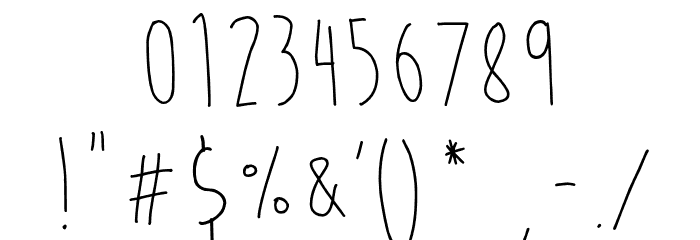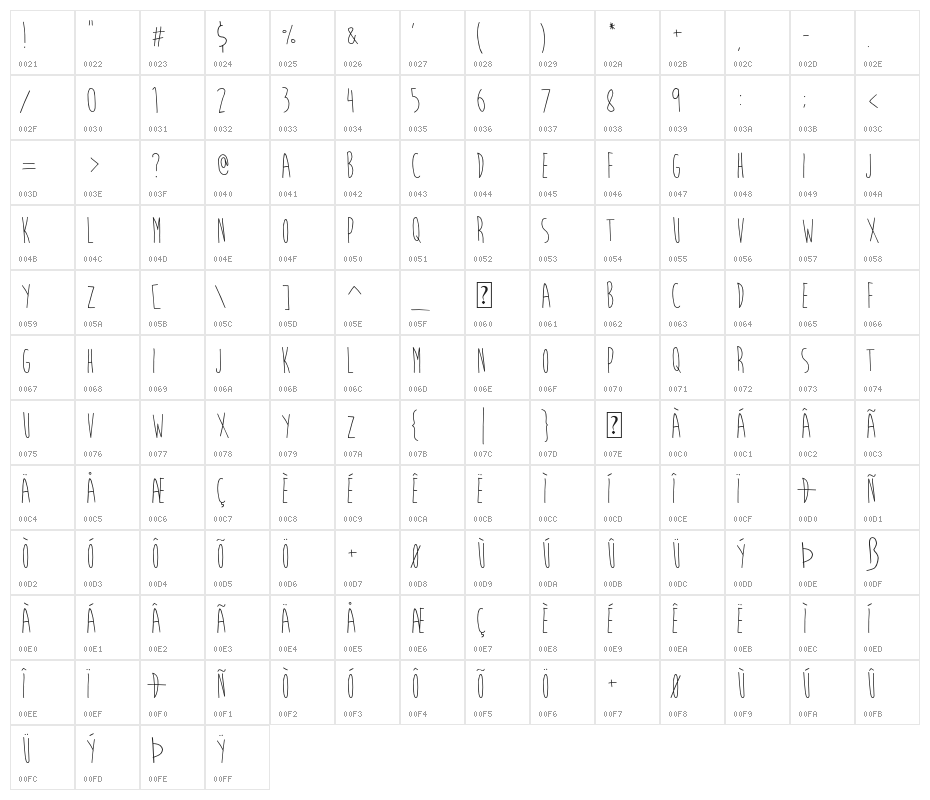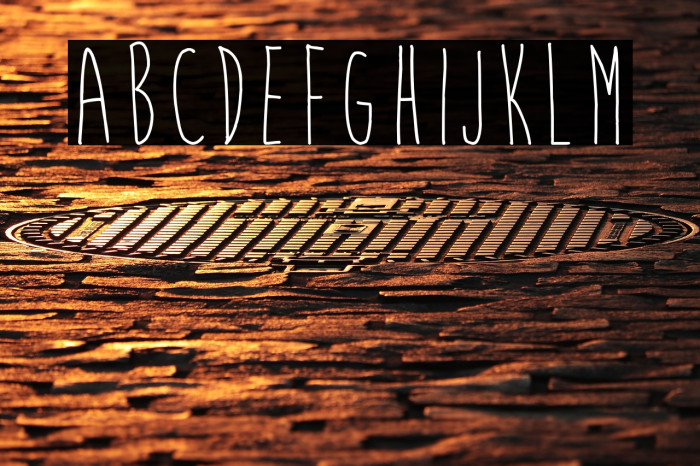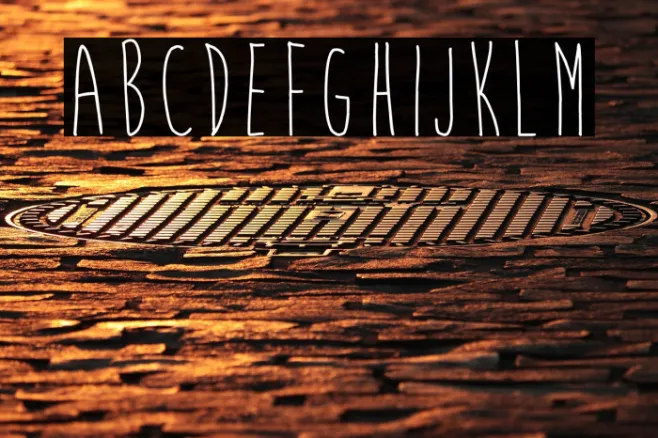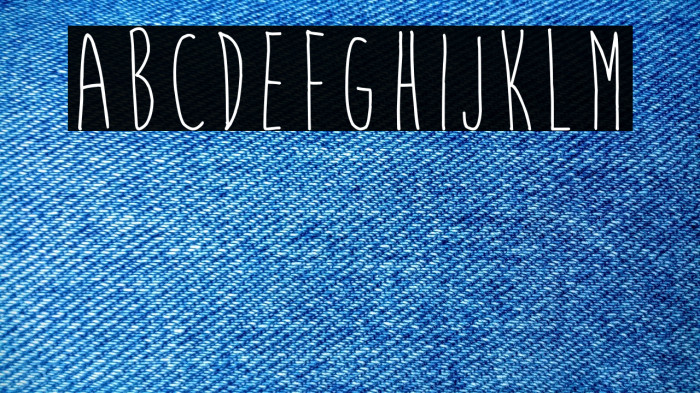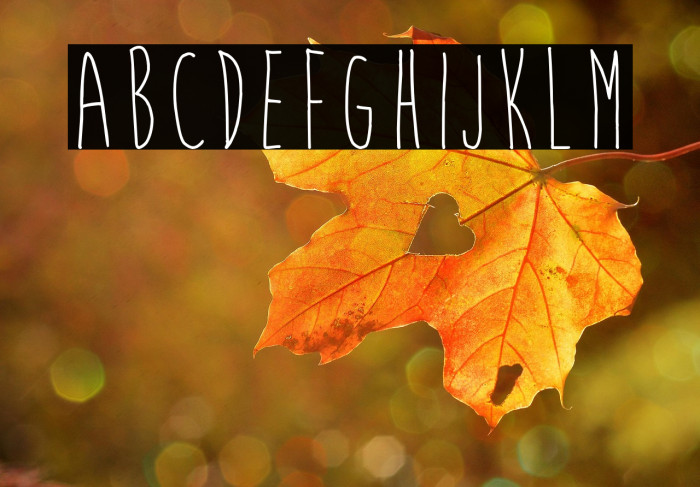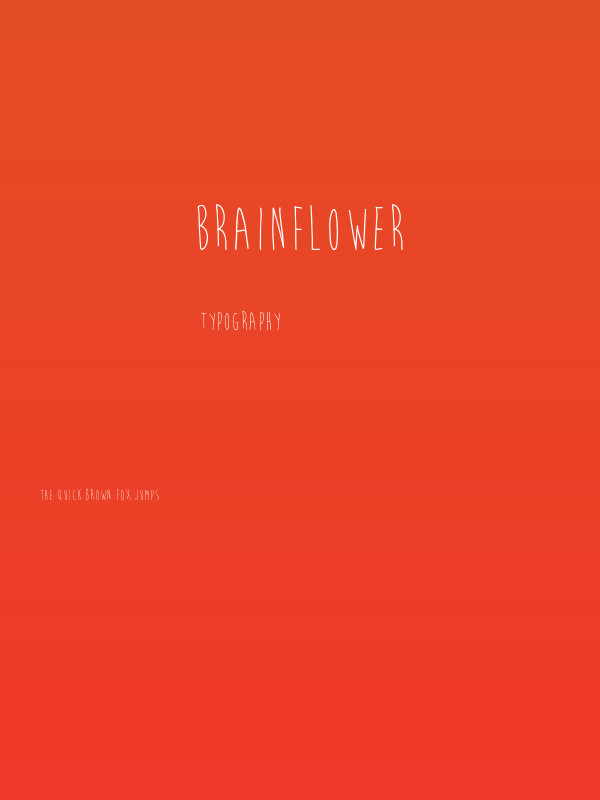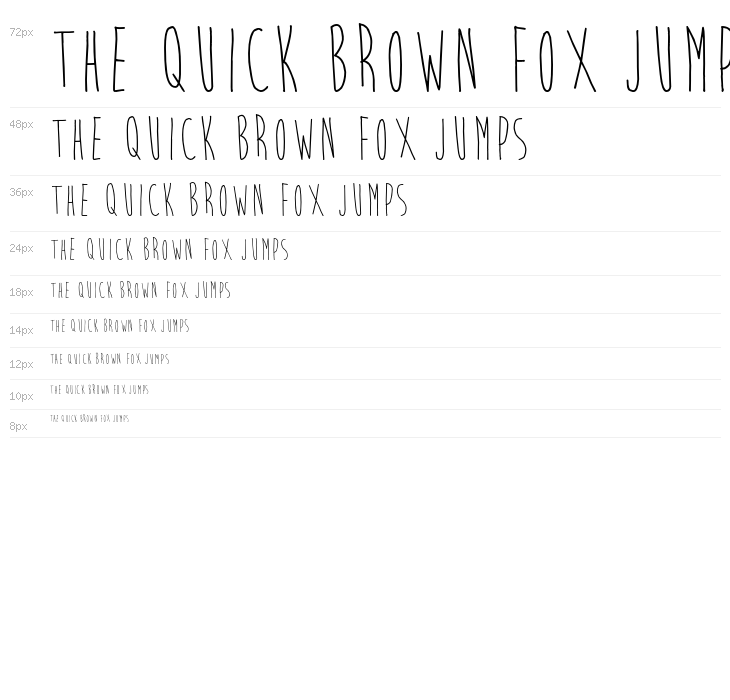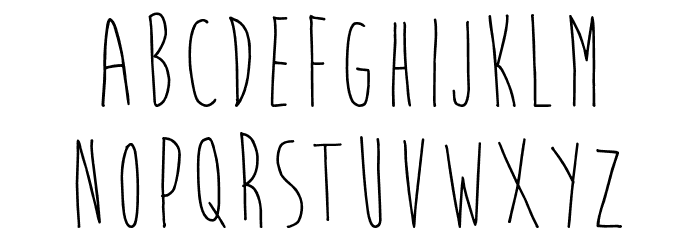
BrainFlower Font
BrainFlower Description
This font features a playful and whimsical handwritten style, characterized by tall, narrow letters with a slight slant. The strokes are thin and consistent, giving it a delicate appearance. The uppercase and lowercase letters maintain a uniform height, contributing to a cohesive look. Numbers and special characters are designed with the same thin strokes, ensuring visual harmony across all elements. The overall design is casual and friendly, making it suitable for projects that require a personal touch.
| Use Case | Headlines, Invitations, Personal projects |
| Proposed Projects | Ideal for greeting cards, children's books, personal blogs, and creative branding projects. |